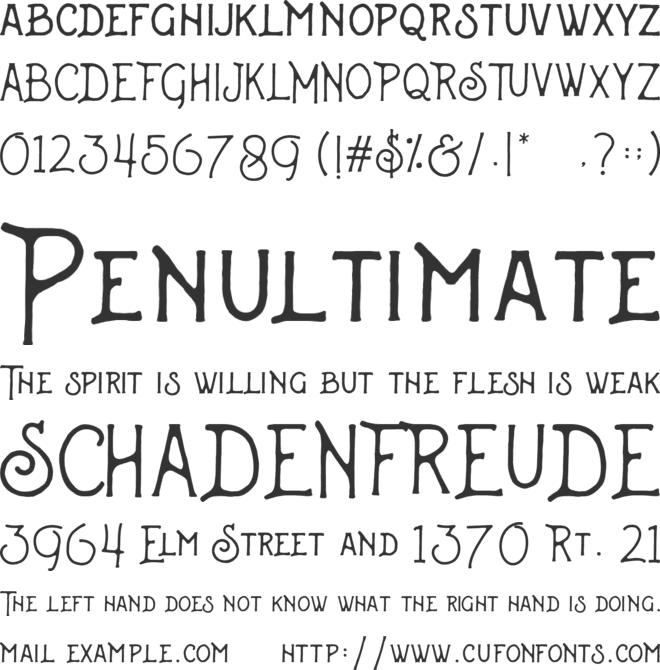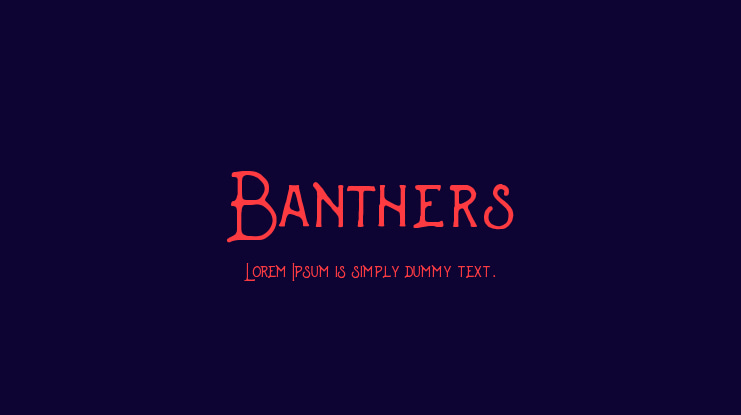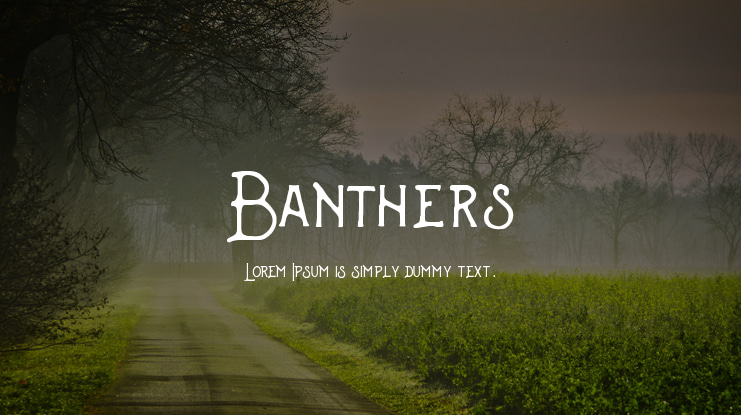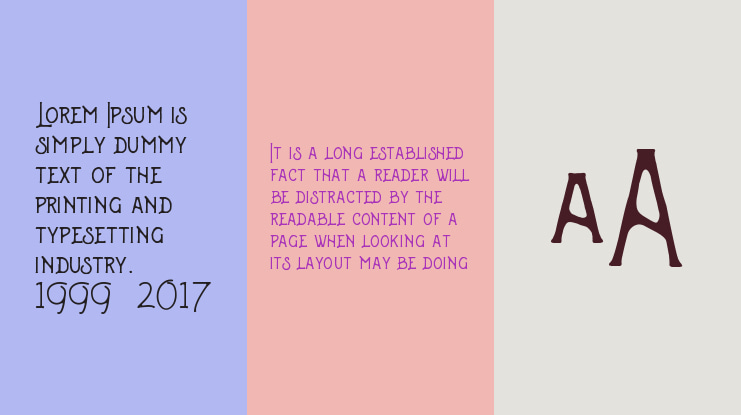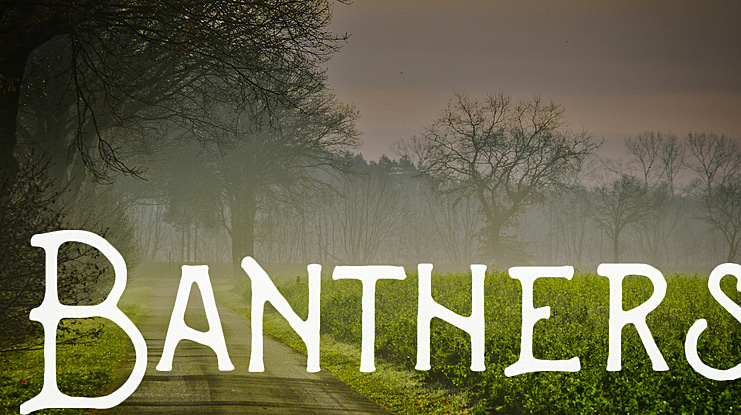
Banthers Font Family
Introducing Banthers -handmade modern vintage mono-line display typeface, which is combining the style of classic typography with an modern handlettering style.